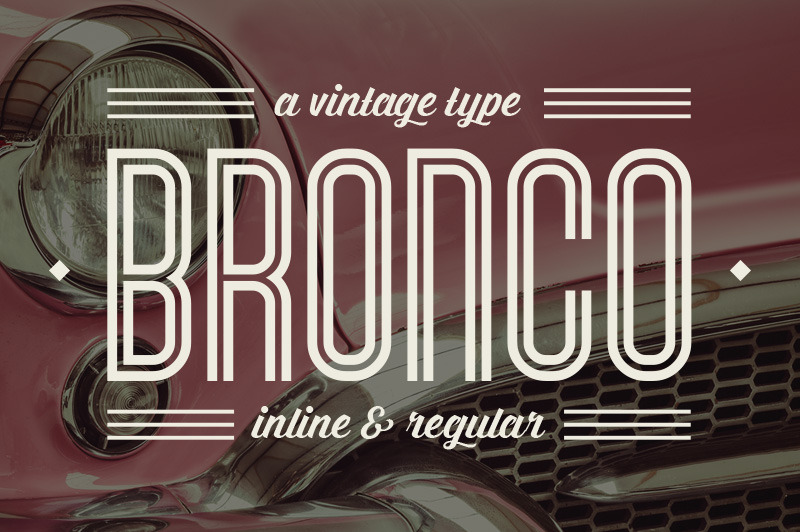
Bronco Typeface
Bronco is an uppercase display typeface in Inline and regular styles. Many of the letters have alternate (higher) versions which you can toggle with caps lock. I've found it great to match it with script fonts and use it for vintage badge designs.